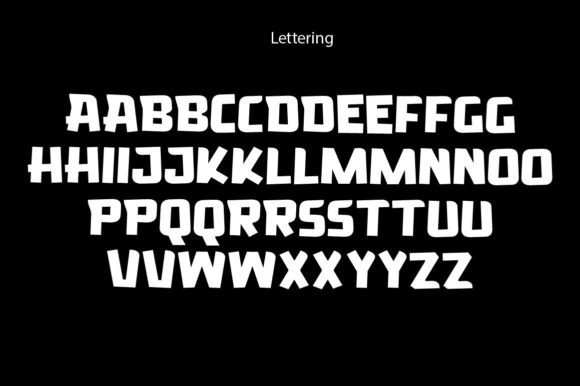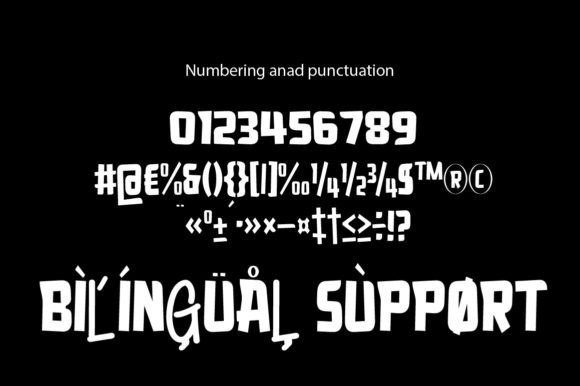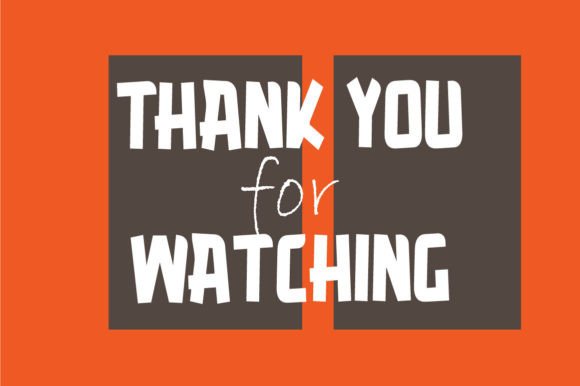
Introduction to Nick Morten Font
Have you ever stared at a blank canvas, feeling like the perfect design is just out of reach? That’s where the magic of typography comes in – and for many designers, it’s the key to unlocking their creative potential. One such font that can breathe life into your projects is the Nick Morten Font.
This free download has been making waves in the design community, thanks to its unique and natural handwritten style. With its high-quality design and transparent background, it’s no wonder why designers are flocking to use it in their creative projects. The Nick Morten Font is an invaluable resource for any design enthusiast, offering endless possibilities for expression and experimentation.
Whether you’re working on a personal project or a commercial design, the Nick Morten Font is sure to bring a touch of personality to your work. Its versatility and charm make it an essential addition to any designer’s toolkit, and its transparent background ensures seamless integration with any background image or color scheme.
Key Features of Nick Morten Font
- Perfect for graphic designers, digital artists, and typographers
- Unique characteristics include a modern and sleek aesthetic, making it suitable for various design applications
Honest Review: Nick Morten Font
I recently stumbled upon the Nick Morten Font, a high-quality design resource that has caught my attention. As a designer, I’m always on the lookout for unique fonts to elevate my creative projects.
The Nick Morten Font is a beautiful addition to any design, offering a clean and modern aesthetic that’s perfect for a variety of applications. Its versatility makes it a great choice for designers who want a font that can adapt to different contexts.
- ✨ High-quality design: The font is well-crafted and has a professional look.
- ⚠️ Limited character set: The font only includes a limited set of characters, which may not be suitable for complex design projects.
- ⚠️ Not suitable for small text: The font’s large size and bold weight may make it difficult to read in small text sizes.
Overall, I’m impressed with the Nick Morten Font’s quality and versatility. While it may have some limitations, it’s a great addition to any designer’s toolkit. With a little creativity, you can unlock its full potential and elevate your designs to the next level.
The Nick Morten Font is a high-quality, free download design resource that can be used in a variety of creative projects. Some common use cases include:
- Branding and logos
- Posters and flyers
To get the most out of the Nick Morten Font, use it on a transparent background to create a clean and modern look. You can also experiment with different font sizes and colors to create a unique design. Additionally, consider pairing the font with other high-quality design resources to create a cohesive and professional look.